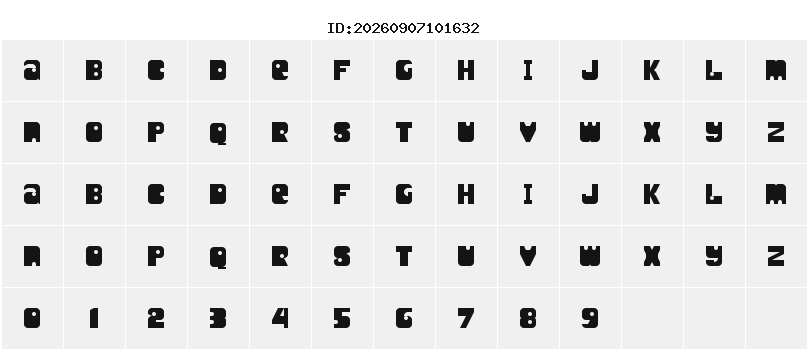
Unity Titling Preview
• Font Name: Unity Titling
• Font ID: FontStruct Unity Titling
• Full Font Name: Unity Titling Regular
• PostScript Name: Unity-Titling
• Designer: James Vipond
• Description: “Unity Titling” was built with FontStruct
About Unity Titling.ttf
Unity Titling.ttf is a modern, elegant sans-serif font designed for ultimate readability and visual harmony. Perfect for branding, headlines, web design, and print materials.